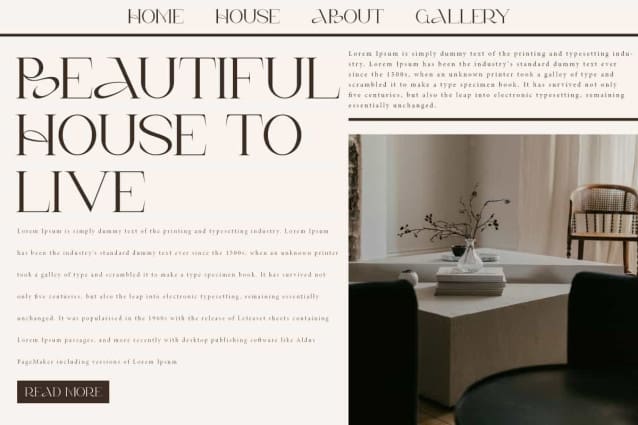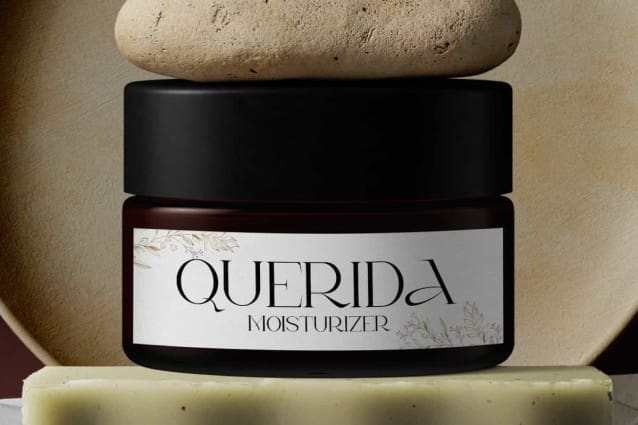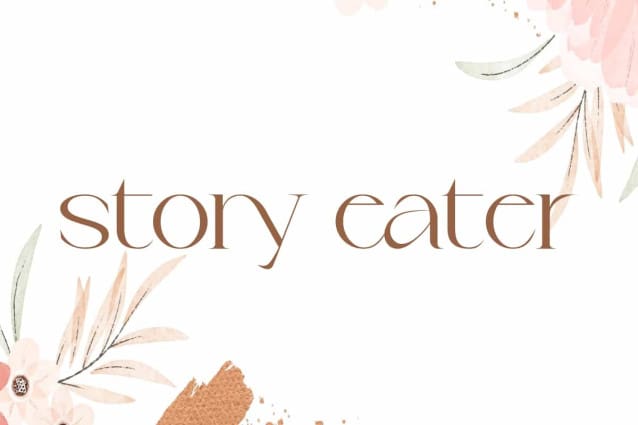
Story Eater Font
Story Eater Font is a minimalist versatile and elegant serif display font that has several connected decorated letters. This font will definitely enhance your designs with its beauty. It would be perfect for any projects, such as advertising, brand image, gift box, invitation, label, layout design, quotes, signage, stationery, template designing purposes, website, and more.
Story Eater Font includes a full set of Uppercase and Lowercase Basic Characters, Numbers, Punctuation, Symbols, and Ligature characters. This beautiful font will be suitable for accessories and jewelry, beauty product, event or wedding organizers, fashion, flower shops, furniture, real estate, spa and salon, etc.